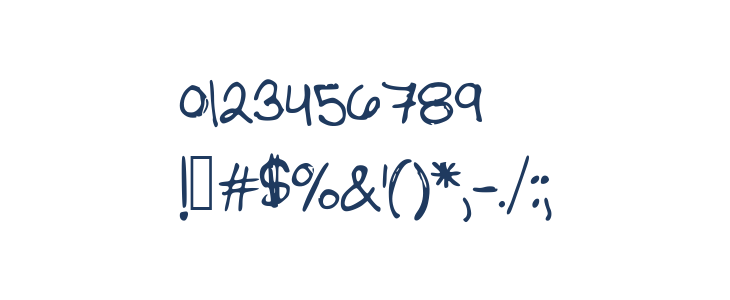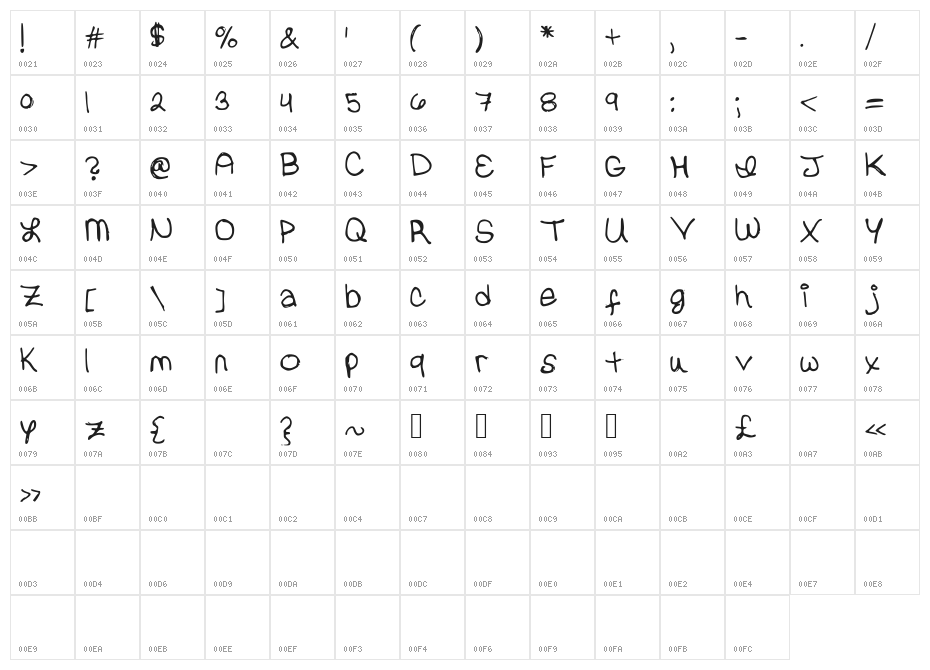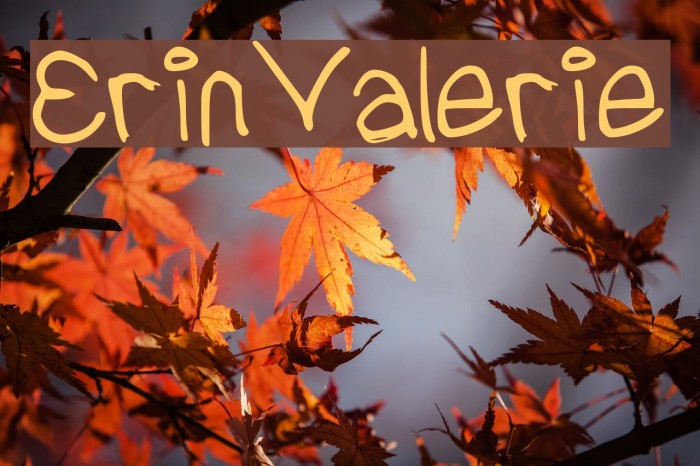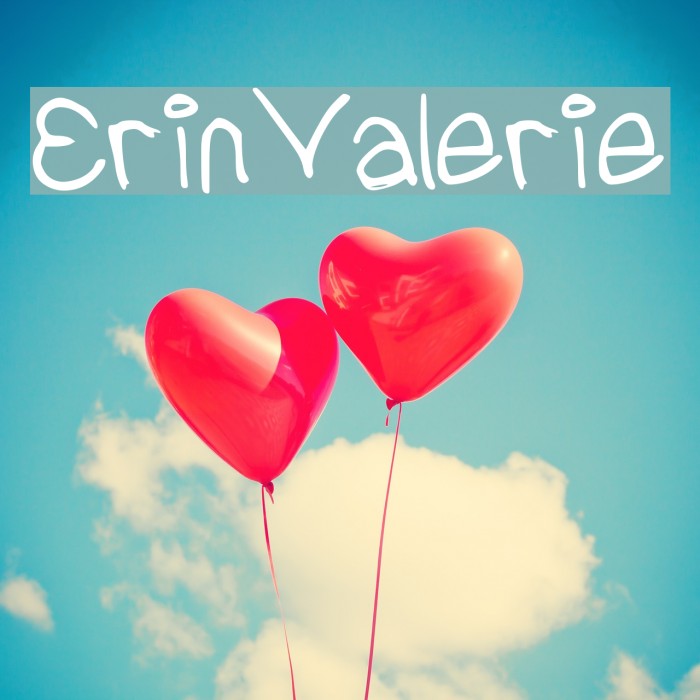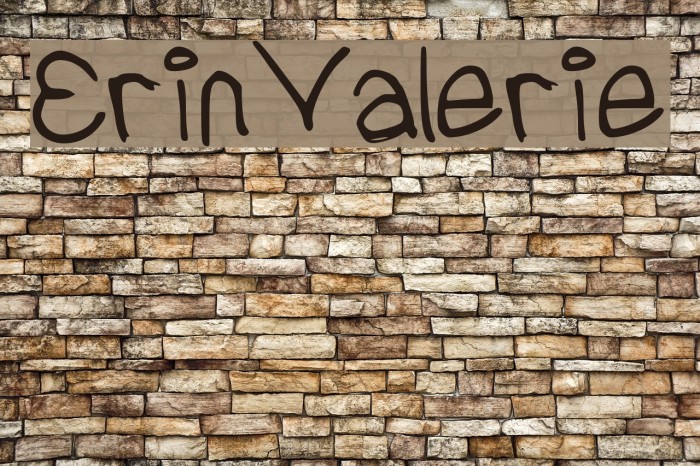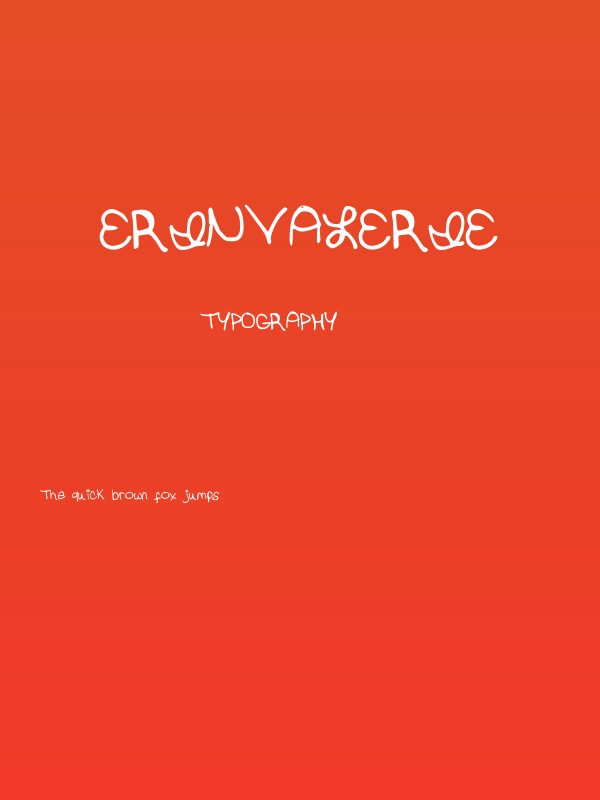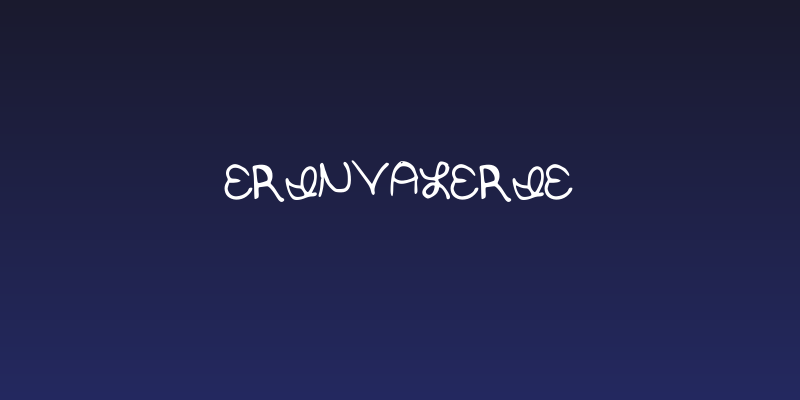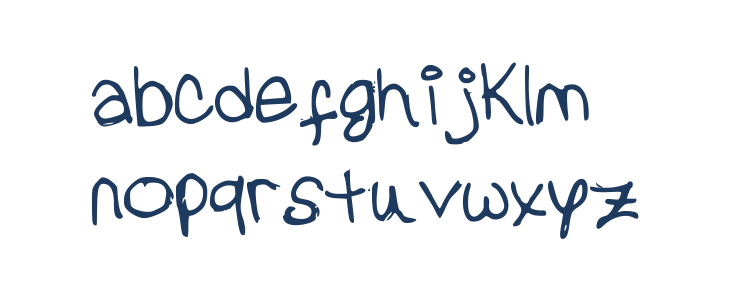
ErinValerie Font
ErinValerie Description
This playful and energetic font features a handwritten style with a casual and informal appearance. The characters are bold and slightly irregular, giving them a lively and dynamic feel. The uppercase letters have a whimsical touch, with some letters incorporating unique loops and curves. The lowercase letters maintain a consistent style, complementing the uppercase with their rounded and approachable forms. Numbers and special characters follow the same playful aesthetic, making this font suitable for creative and fun projects.
| Use Case | Logos, Headlines, Informal Text |
| Proposed Projects | Ideal for children's books, playful branding, greeting cards, and informal invitations. |